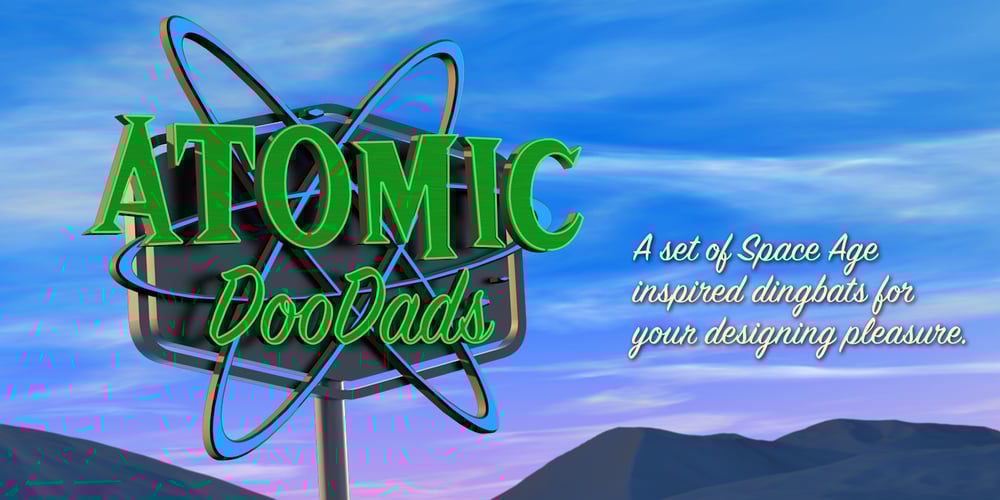
Atomic DooDads RJH Font Family was designed by Bob Hemphill and published by bobarama. Atomic DooDads RJH contains 1 styles and family package options. Blast into the past with Atomic DooDads, a set of 1950’s and 60’s-era dingbats. Baby boomers to late bloomers will enjoy this set of playful glyphs. Go get yourself a cup-a-joe and design the heck out of something.